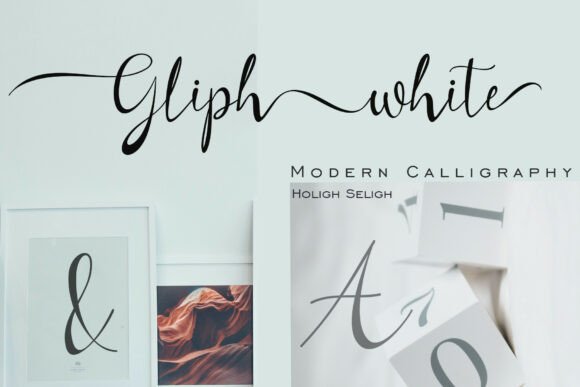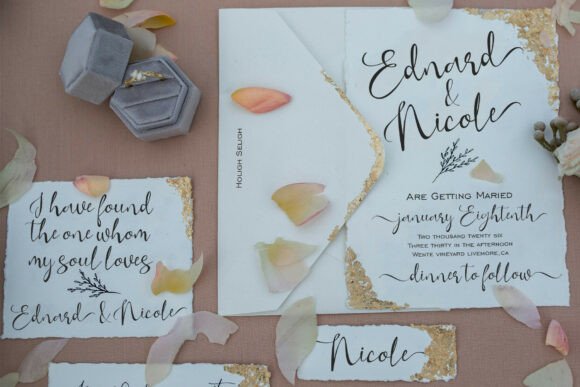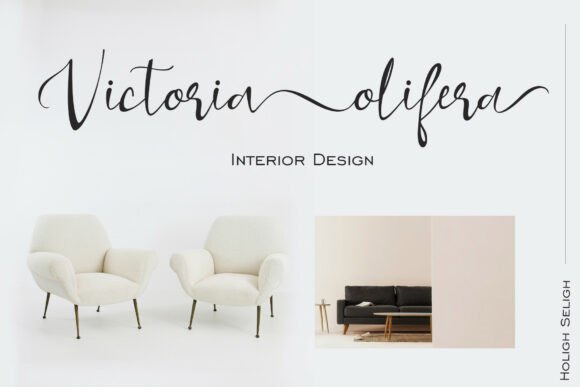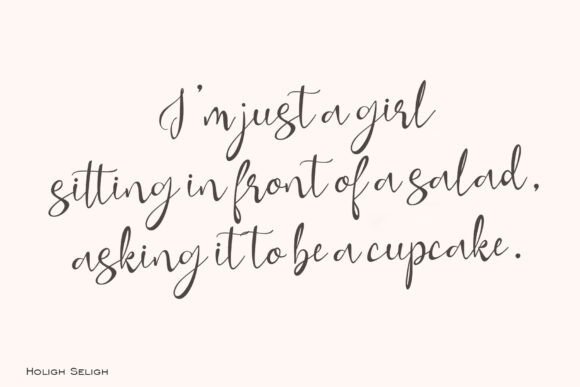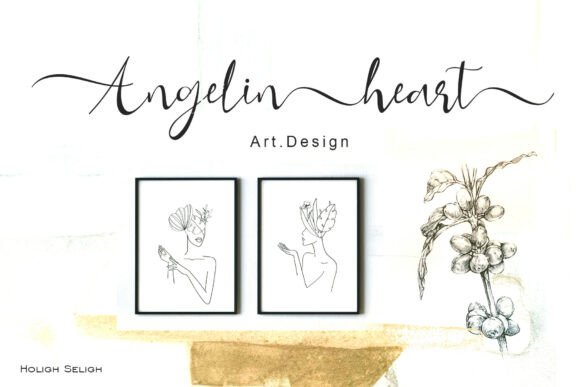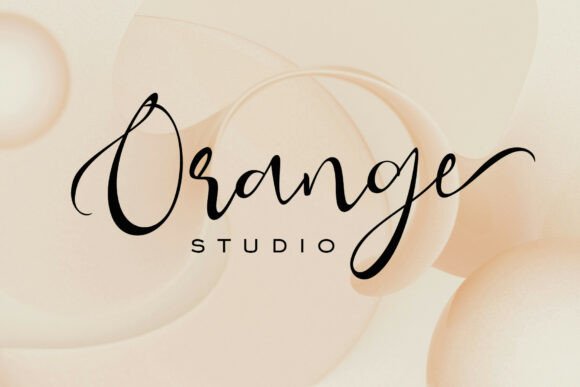
Discover the Timeless Elegance of Hand-Drawn Typography
You’ve spent hours perfecting your design, pouring your heart and soul into every detail. But something’s missing – a touch of personality, a dash of whimsy. It’s then that you stumble upon the perfect solution: a beautifully crafted calligraphy font that brings your design to life.
Enter the enchanting Holigh Seligh Font, a masterfully designed calligraphy font that combines elegance with expressive charm. This stunning font features flowing letterforms, delicate swashes, and a refined, hand-lettered style that’s sure to elevate your designs. Whether you’re creating invitations, branding, logos, or social media graphics, the Holigh Seligh Font is the perfect tool to add a touch of sophistication and personality to your work.
Holigh Seligh Font Key Features
- Font Family: Holigh Seligh Font is a unique, high-end font family designed for various applications.
- Unique Characteristics: The font features a unique blend of modern and traditional elements, making it ideal for creating visually appealing designs that stand out from the crowd.
Design Review: Holigh Seligh Font
Overall, I think Holigh Seligh Font is a beautiful, hand-drawn font that can add a touch of whimsy to any design project. ✨ It’s perfect for creating a unique and eye-catching visual identity.
- Unique and playful design that sets it apart from more common fonts
- Great for use in headings, titles, and other display text
- Supports a range of languages, making it a versatile choice
- May not be as readable in smaller text sizes, due to the hand-drawn style
- Some letters may be difficult to distinguish from one another, especially for those with visual impairments
- Not ideal for body text or large blocks of text, as it can be overwhelming
Overall, I think Holigh Seligh Font is a great choice for designers who want to add a touch of personality to their work. While it may have some limitations, its unique design and versatility make it a valuable addition to any design toolbox.
Use Holigh Seligh Font for:
- Whimsical and playful designs.
- Children’s books and educational materials.
- Wedding invitations and